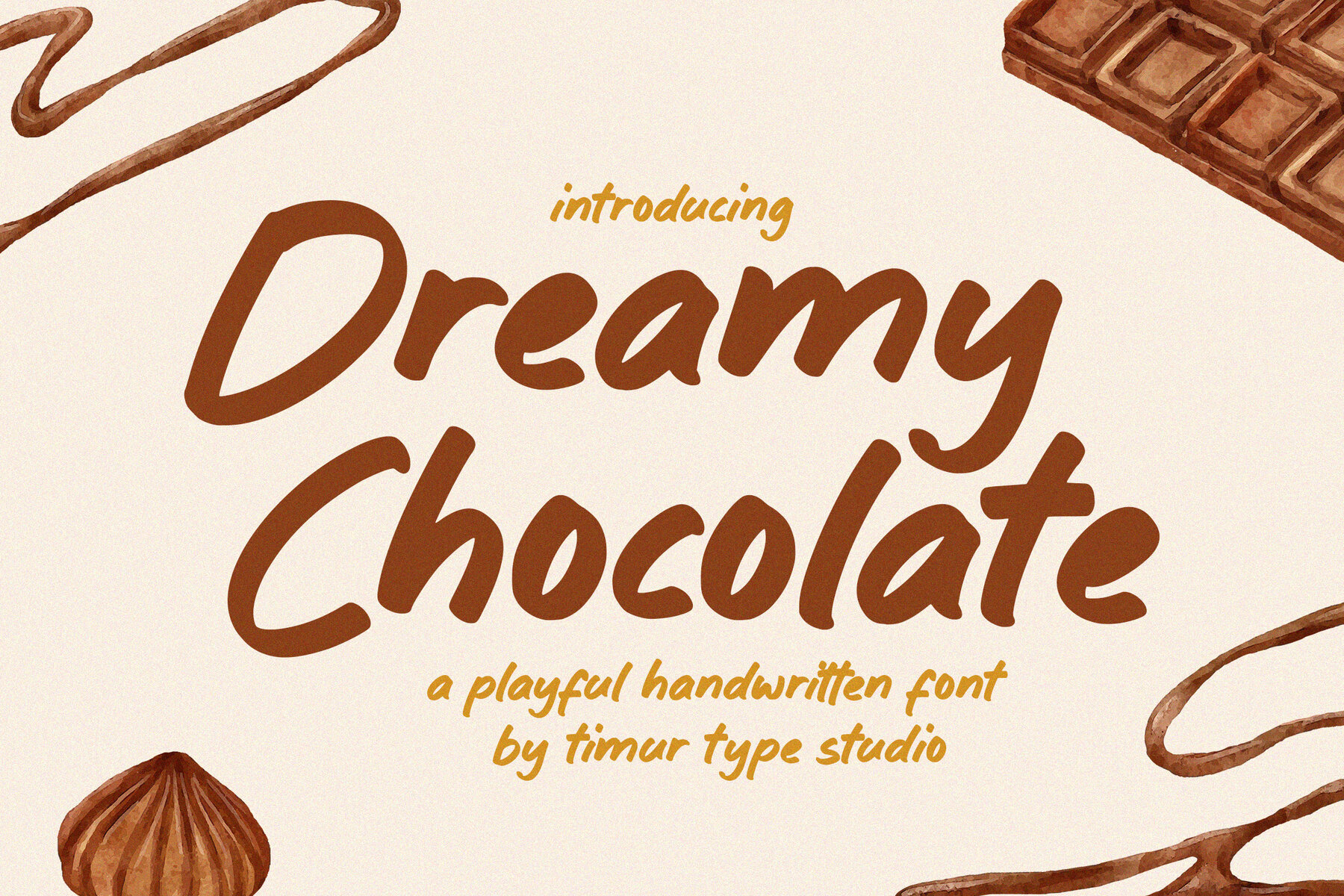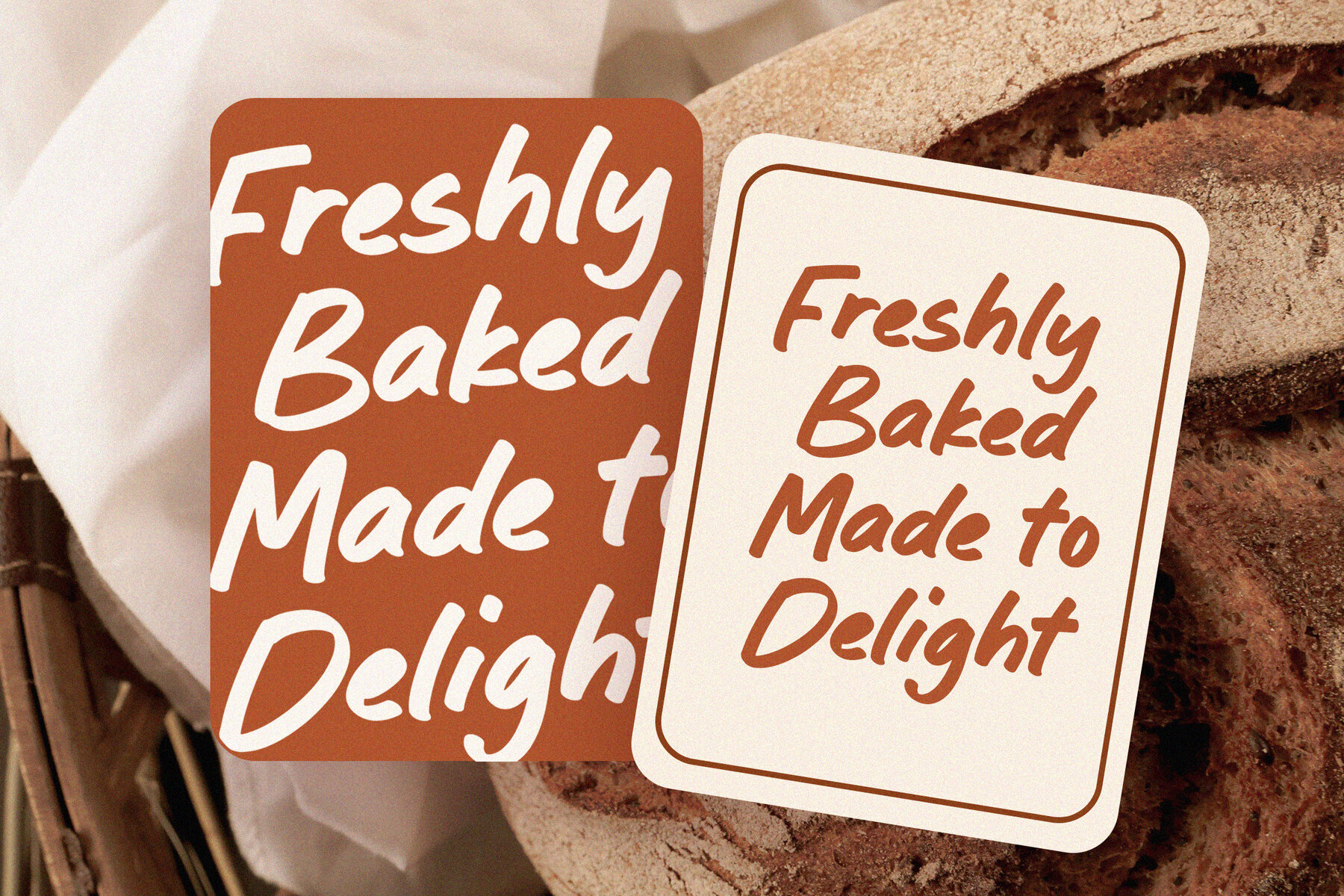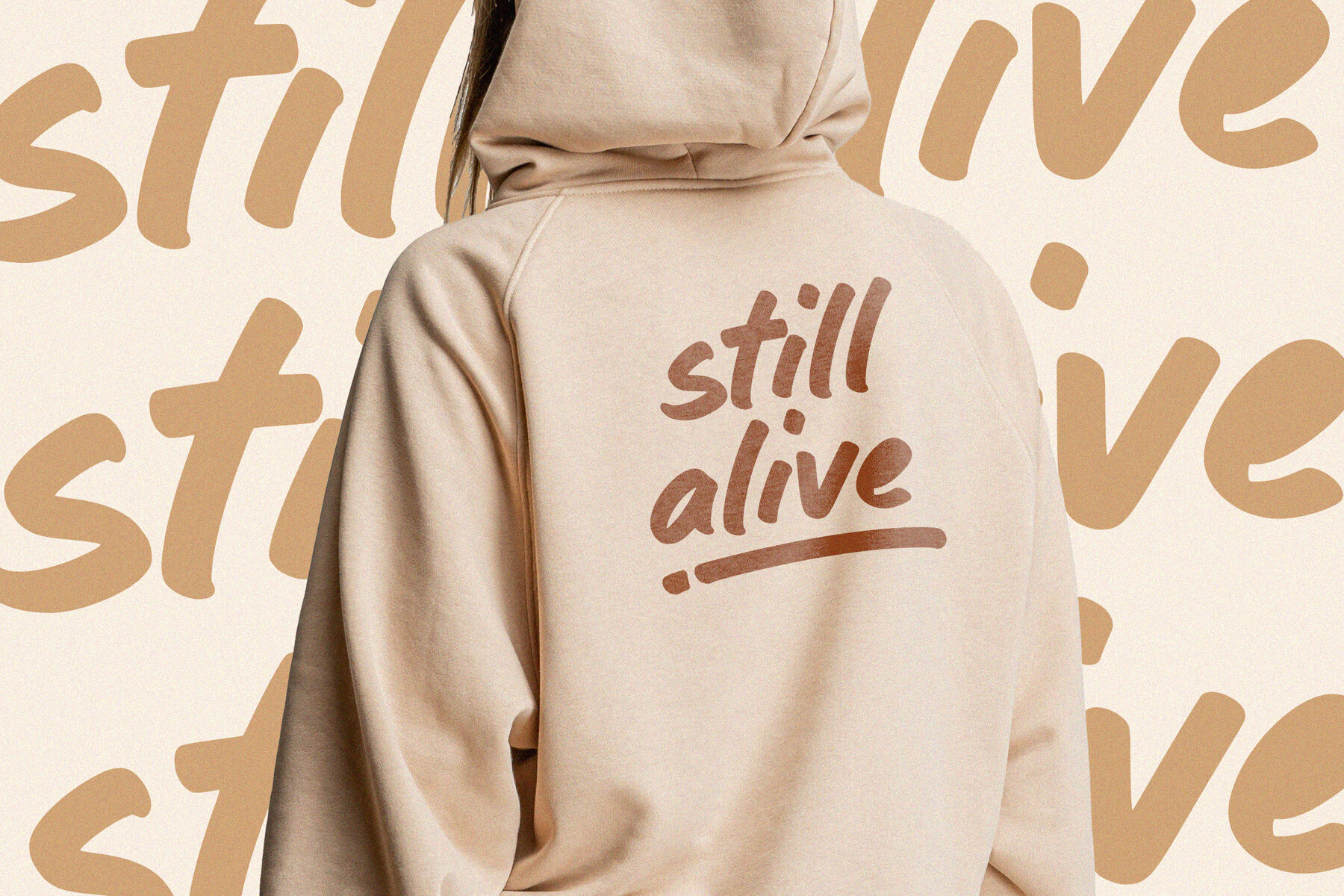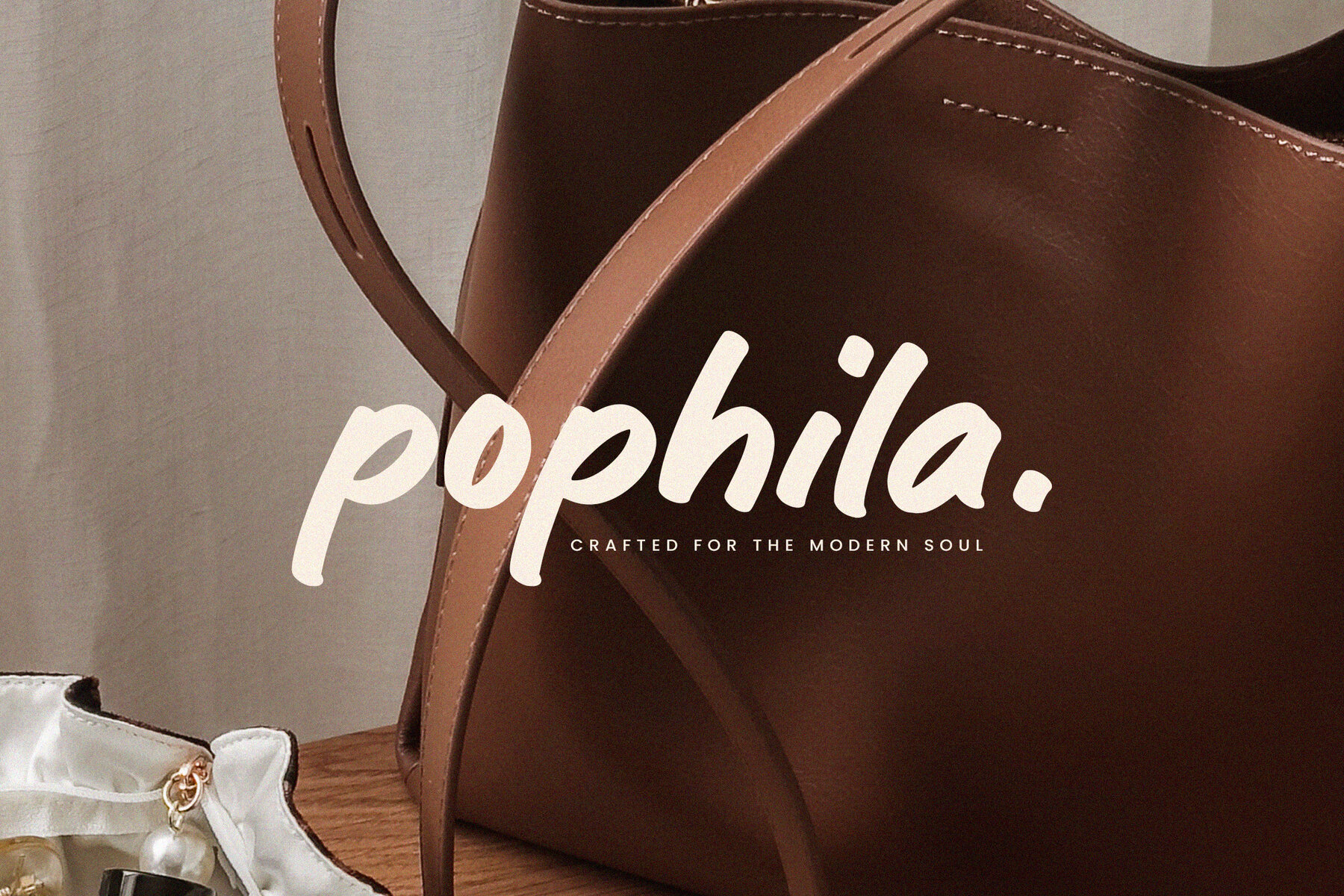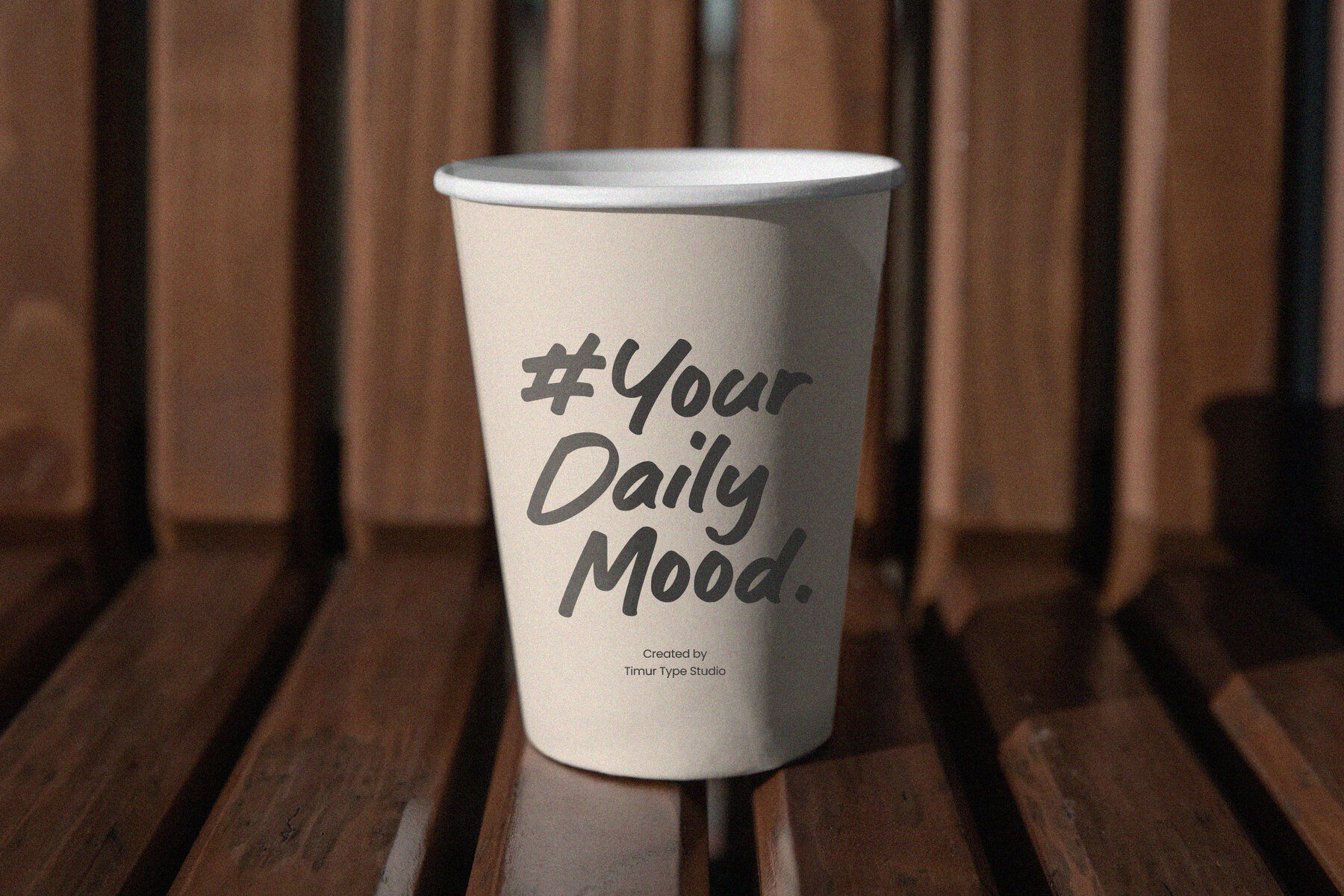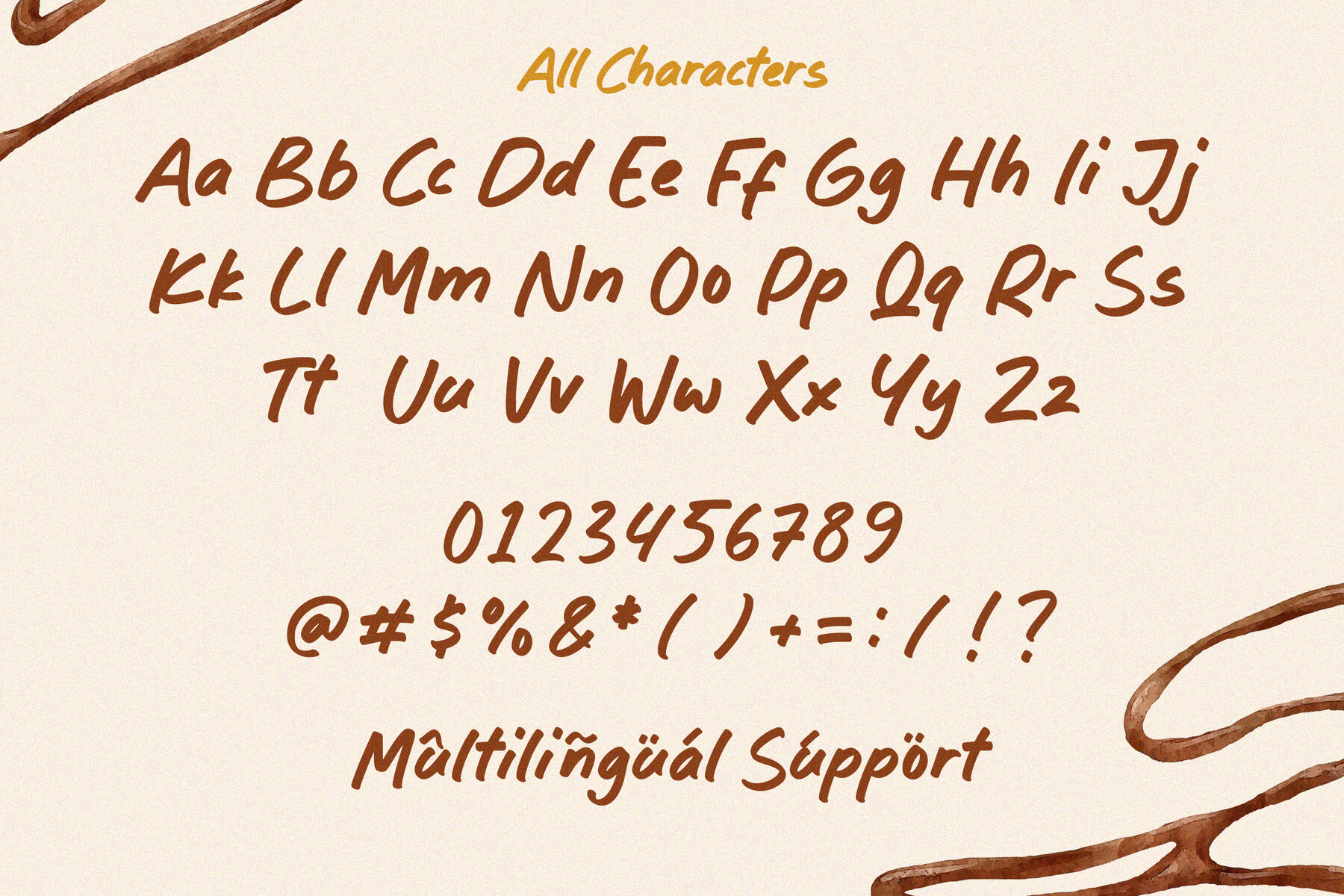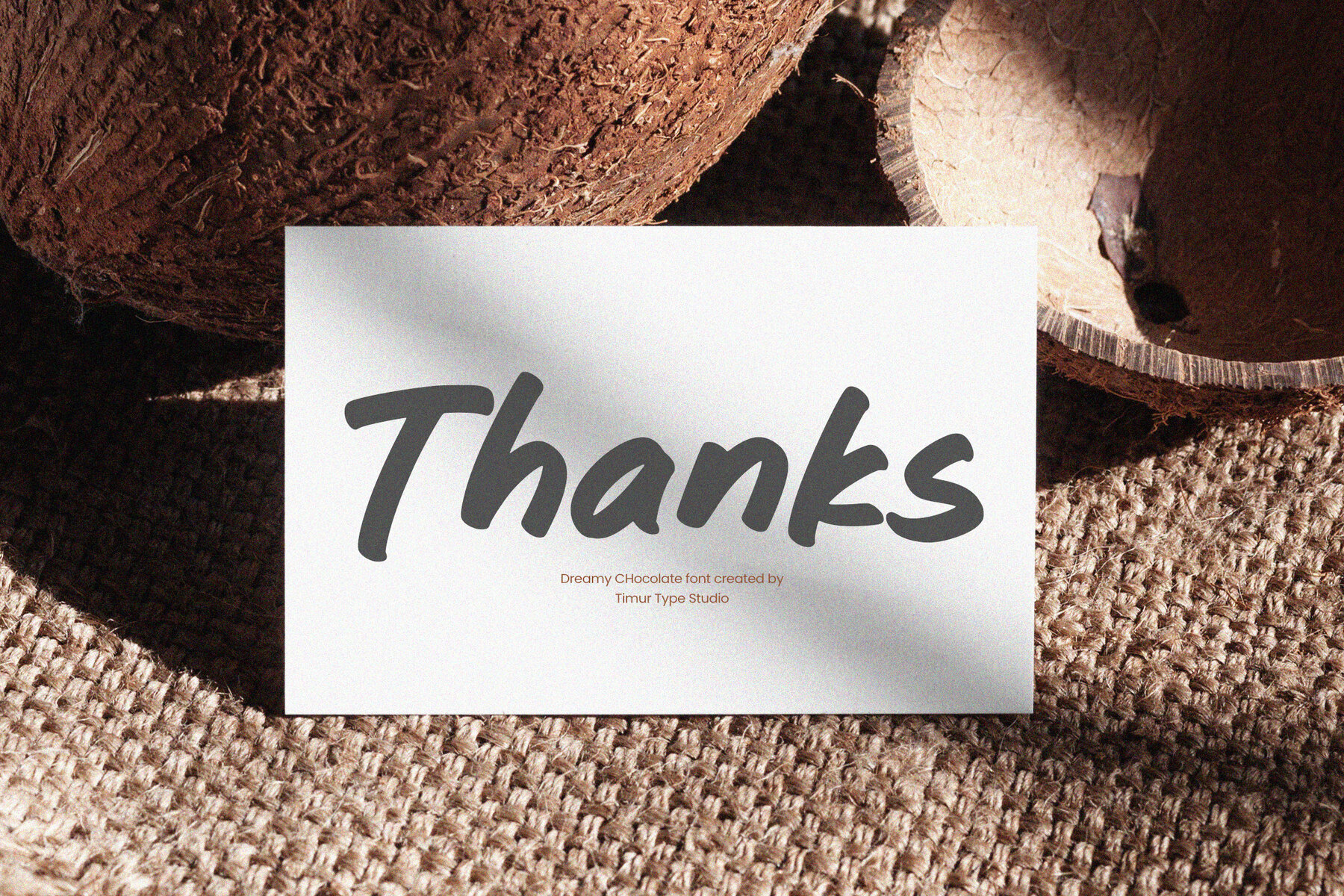
Dreamy Chocolate Font
Dreamy Chocolate
Dreamy Chocolate is a delightful handwritten display font that exudes sweet and whimsical charm. Featuring smooth, flowing strokes and slightly bouncy letterforms, this font adds a fun, friendly touch to any project. It's ideal for branding, packaging, and invitations—perfect for those creative endeavors that benefit from a warm, inviting vibe.Dreamy Chocolate